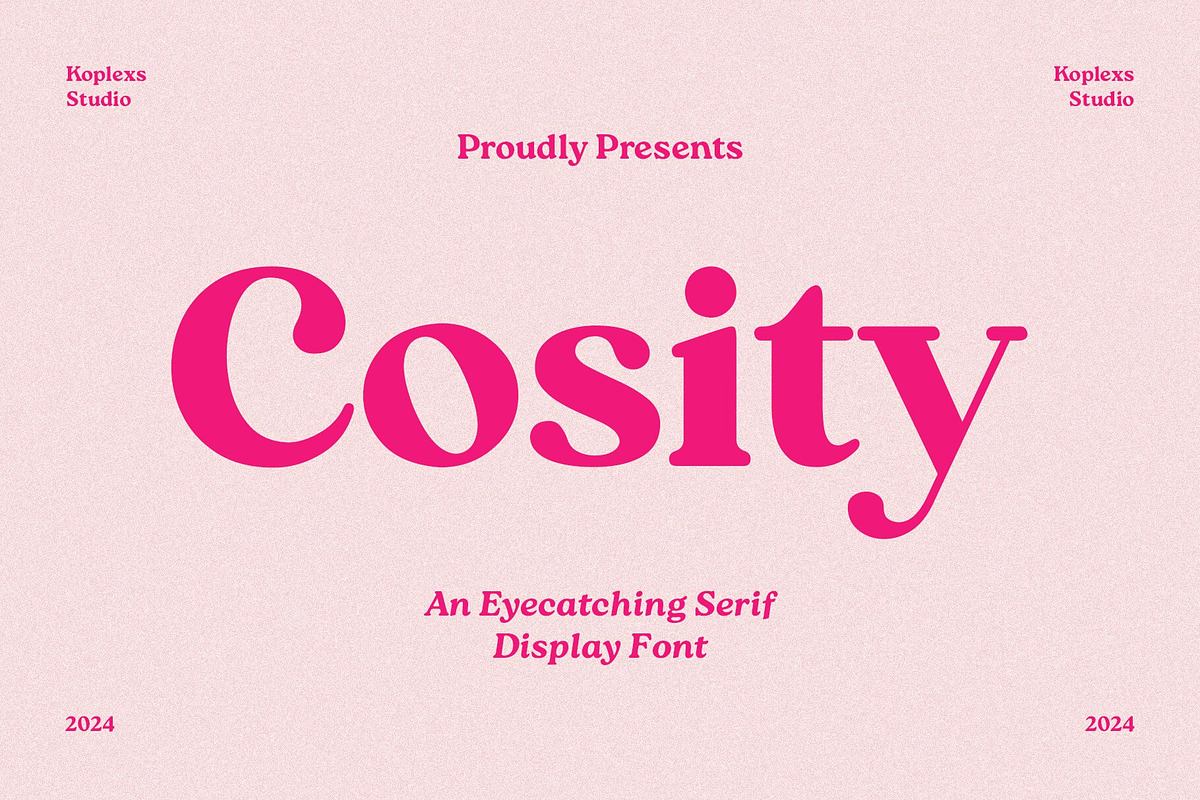
Cosity - Display Serif Font Free Download
Cosity - Display Serif Font Free Download is a modern and elegant serif typeface designed for high-impact, stylish designs. With its clean lines and strong, artistic character, Cosity is perfect for use in branding, headlines, posters, and any project that needs a sophisticated, attention-grabbing touch.
The distinct serif details and structured design of Cosity make it ideal for both print and digital applications, adding a bold yet refined feel to your typography. Whether you're working on a modern brand, a creative campaign, or an editorial project, Cosity provides a strong and polished visual presence.